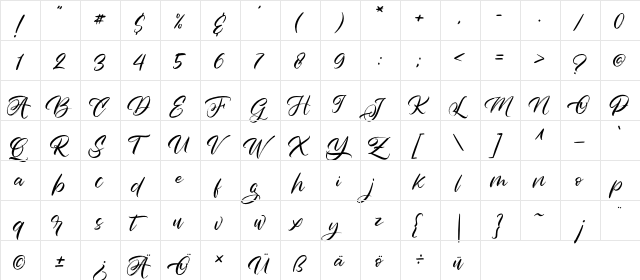
Silver Flower Regular
Design Context for Silver Flower Typeface
Silver Flower is a composed and adaptable typeface that performs quietly and consistently across a wide range of design contexts.